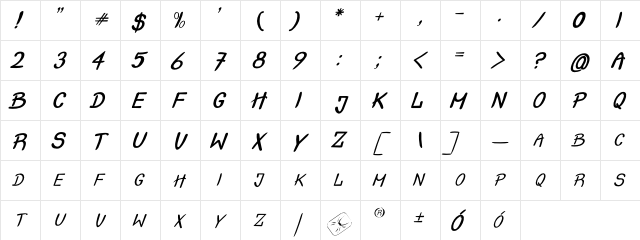
Crash Test Italic Regular Free Font
Crash  Test Italic Regular
Complete Crash Test Italic Regular glyph index. Displaying only characters natively supported by Crash Test Italic Regular font.
Design Context for Crash Test Italic
Crash Test Italic is a composed and adaptable typeface that performs quietly and consistently across a wide range of design contexts. The slanted form adds forward momentum and visual energy.
Pro Tip: Use Crash Test Italic for emphasis, pull quotes, and subheadings where its slanted energy can add rhythm to the layout.